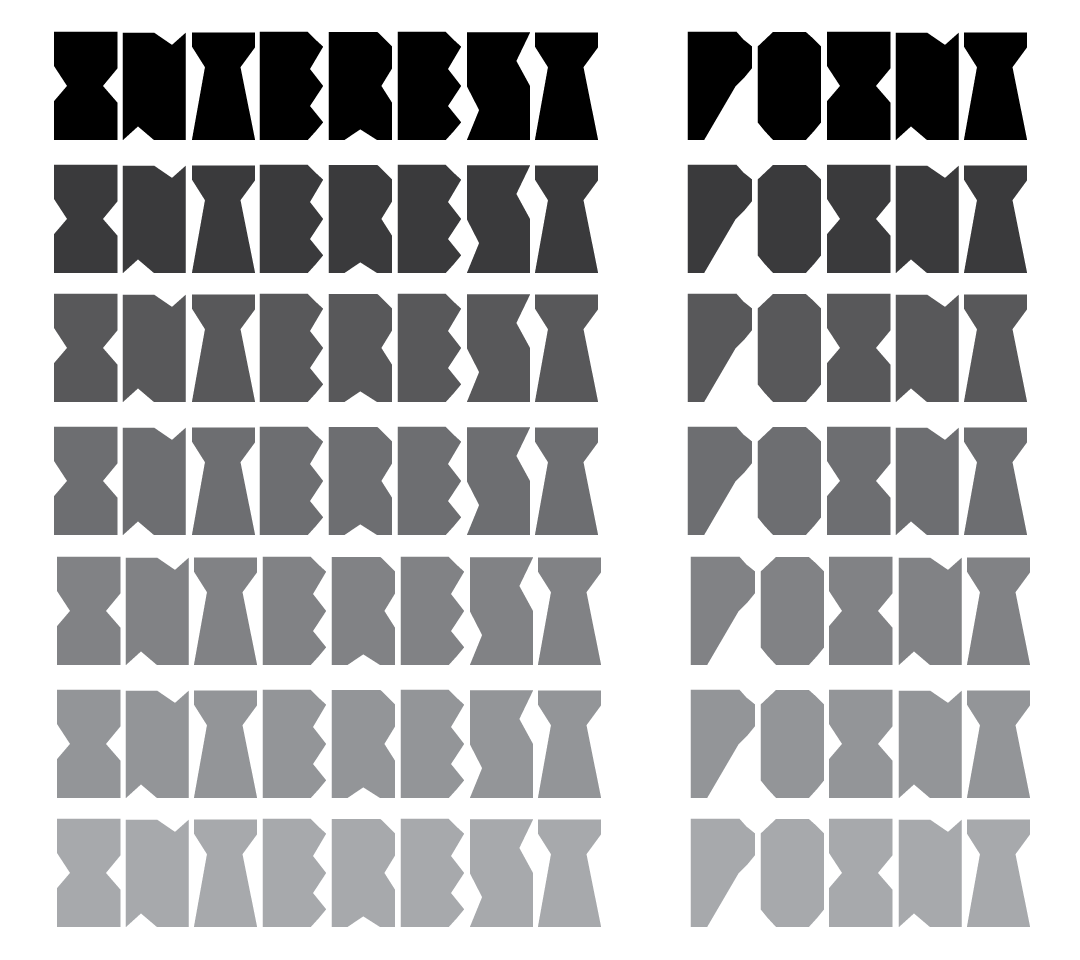
Interest Point is a font born from 20 dynamic anchor points that shift and twist on a vertical rectangle, each movement sculpting a letter, symbol, or punctuation mark with fluid precision. This striking design draws its inspiration from the Edwards Passmore Library and Bathhouse, with an irregular, almost rebellious floor plan which echoes in every curve of the font. The building itself is a fractured rectangle, its walls slanted and corners sharp, each turn a deliberate defiance of symmetry'much like the font that mirrors its architectural complexity. Yet, despite its jagged origin, each glyph in Interest Point is perfectly uniform, occupying the same precise width, creating a surprisingly geometric harmony. This contrast is where the true beauty lies, as the font's crisp, ordered structure stands in sharp juxtaposition to the building's timeworn elegance. The library, with its intricately carved stone and delicate details, speaks to a history long past, its weathered surfaces echoing the passage of time'just as Interest Point bridges the gap between the old and the new in its bold, geometric form.